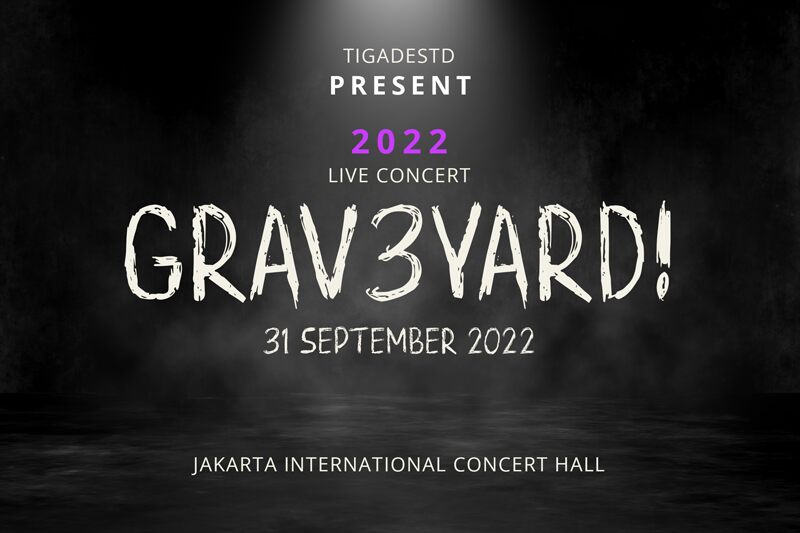
Quarantino 2022
Quarantino 2022 font is a free script font created by Tigadestd. Defined by its trash style, Quarantino 2022 has a unique grunge and distressed texture. It holds an edgy side which makes it ideal for chaotic aesthetic designs and can even be used for modern applications.